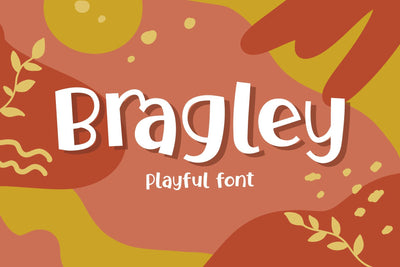
Bragley Font + Extra
Bragley is a playful font, with the bouncy letter shapes, inspired by children's themes and cute handwritten. Bragley font is fun to combine the uppercase & lowercase randomly. There are some ligatures to give your design looks more joyfully! Also with a bonus 'Abstract organic background' to ease your work.
This cute font is perfect for toys, picture books, t-shirts, posters, logos, short body text, book covers, and anything that requires fun and friendly looks!